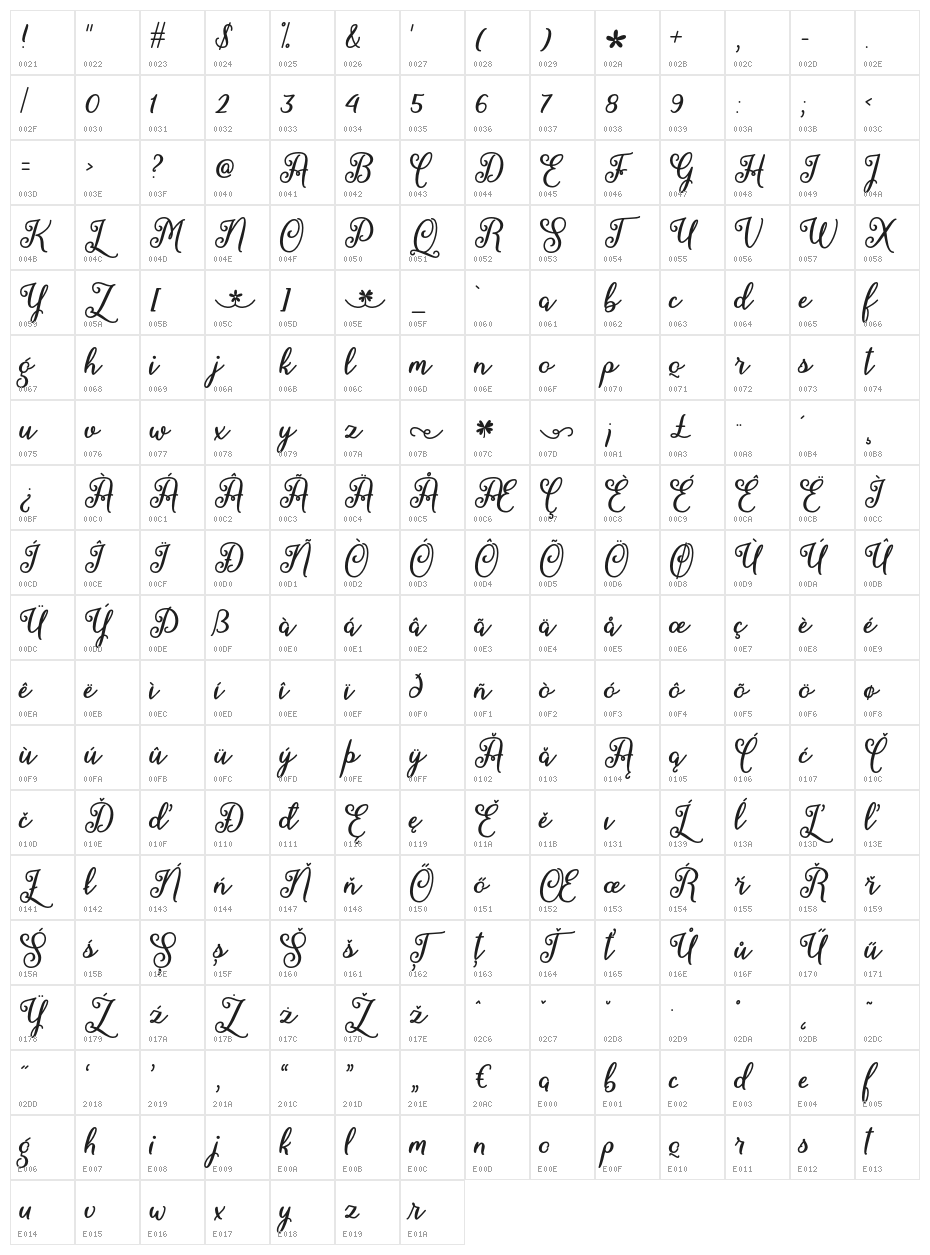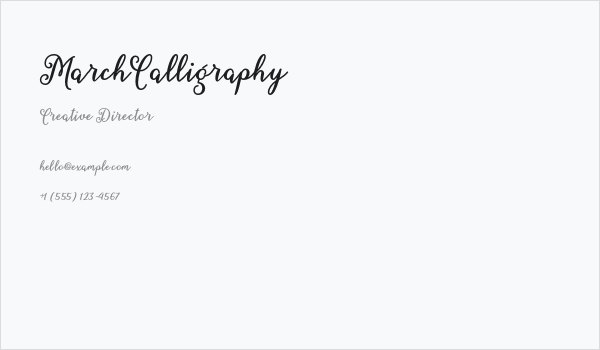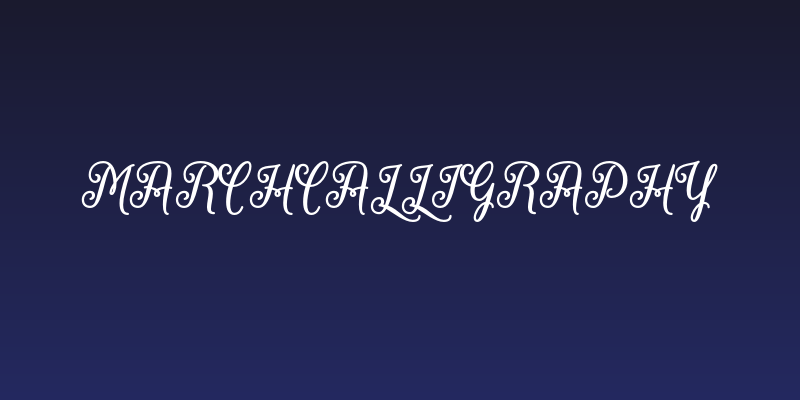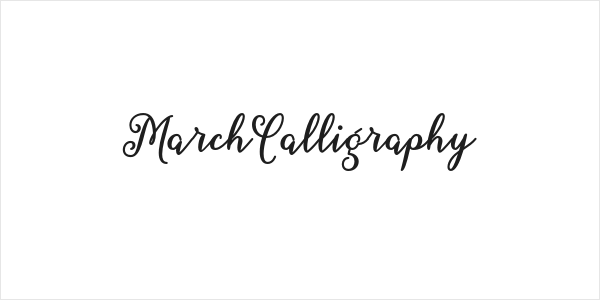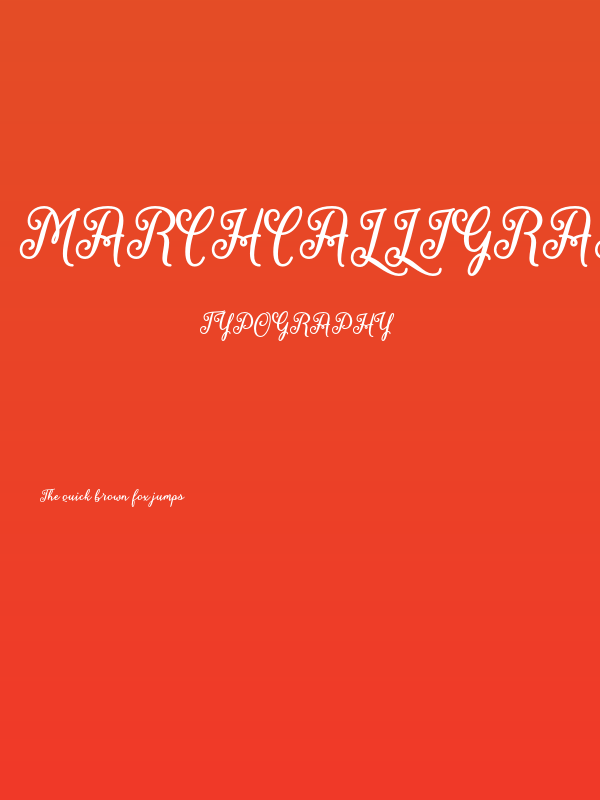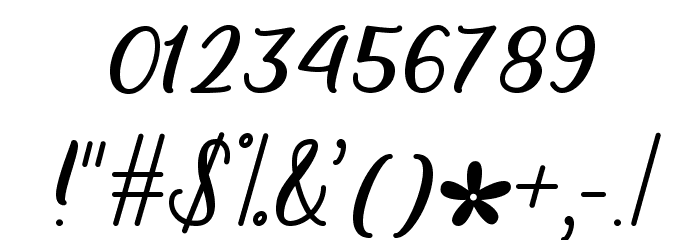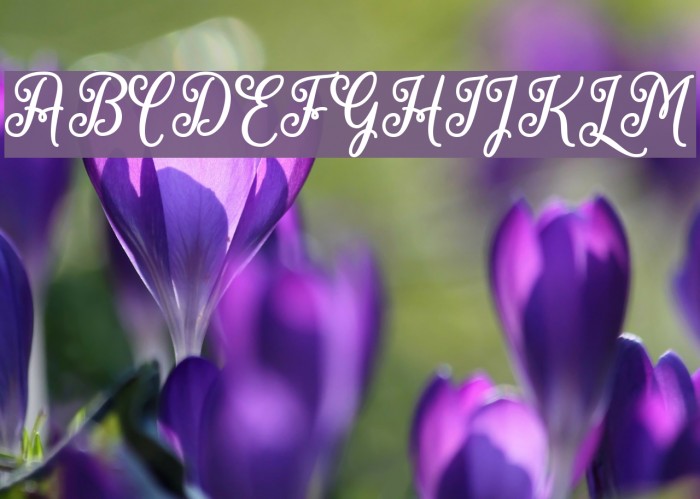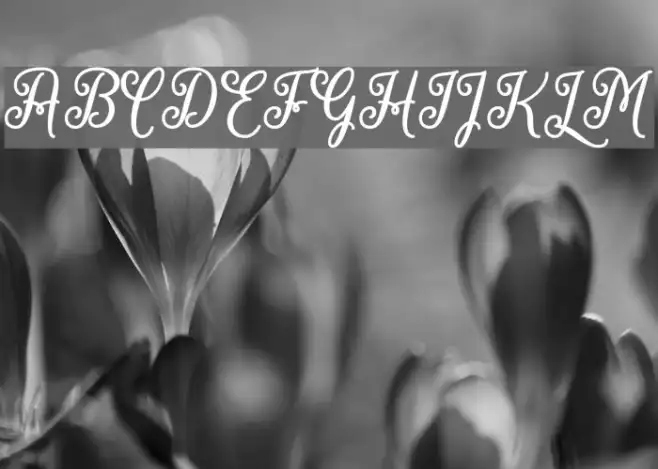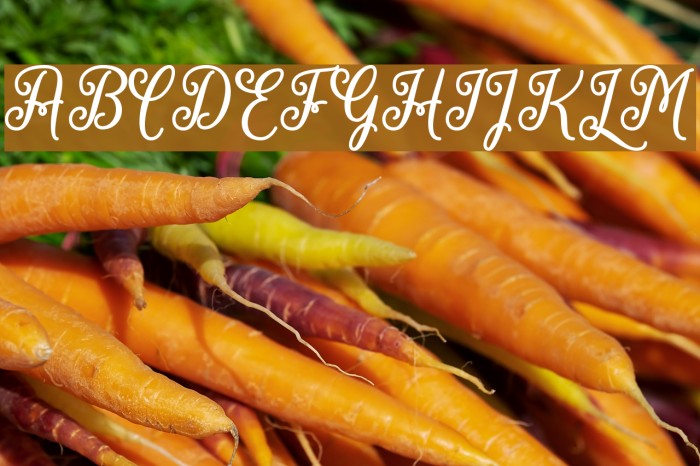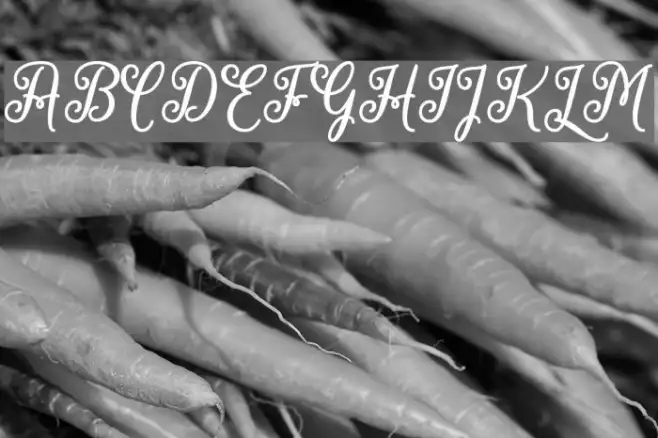
MarchCalligraphy Font
MarchCalligraphy Description
This elegant script font features a flowing, cursive style with decorative swirls and loops that give it a sophisticated and artistic appearance. The uppercase letters are adorned with intricate flourishes, while the lowercase letters maintain a smooth, connected flow. The numerals are consistent with the overall style, offering a harmonious blend of curves and lines. Special characters are designed with the same attention to detail, ensuring a cohesive look across all glyphs. This font is perfect for adding a touch of elegance and refinement to any project.
| Proposed Projects | Ideal for wedding invitations, greeting cards, branding, and elegant logos. |